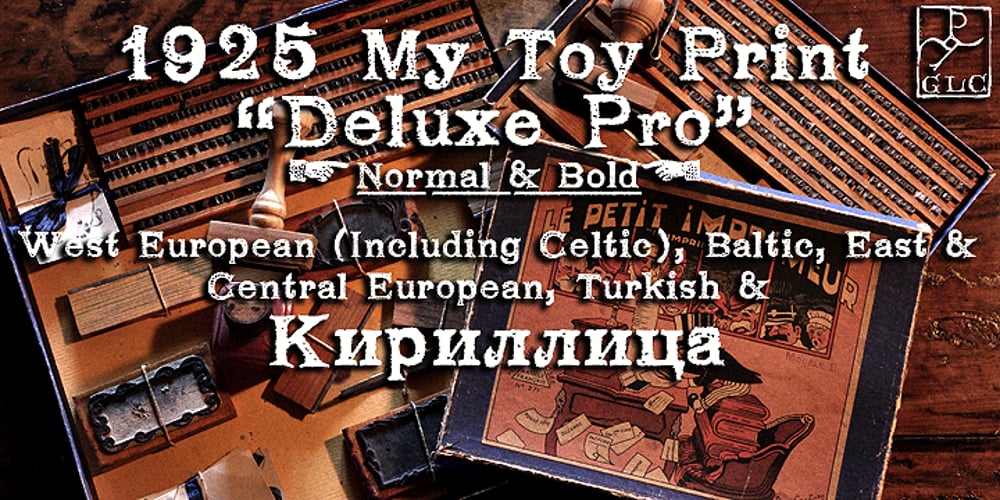
1925 My Toy Print Deluxe Pro
1925 My Toy Print Deluxe Pro font
1925 My Toy Print Deluxe Pro Font Family was designed by published by GLC. 1925 My Toy Print Deluxe Pro contains 2 styles and family package options. This family was created inspired from two French (one so common and a very rare large one) “toy print” boxes, named Le petit imprimeur, with rubber stamp characters from the 1920’s. The big difference from our 1920 My Toy print is that this font is complete, with upper and lower cases, accented, complete punctuation and some symbols. The doubly of each usual character in each style (A-Z/a-z and numerals) allow to give a rich and variously uneven appearance, looking like the results of the real use of those old rubber stamps, with bad kernings and alignement. The font is containing West (including Celtic), Central, East European, Turkish and Cyrillic characters. The bold style may be used as a reinforcement, mixed with normal style without disadvantage, allowing finally four choices for each usual letter… The original size is 6mm (about 17 pts).